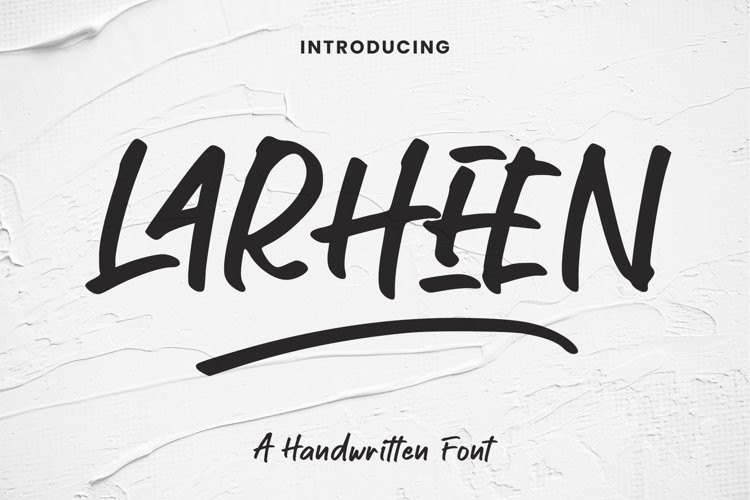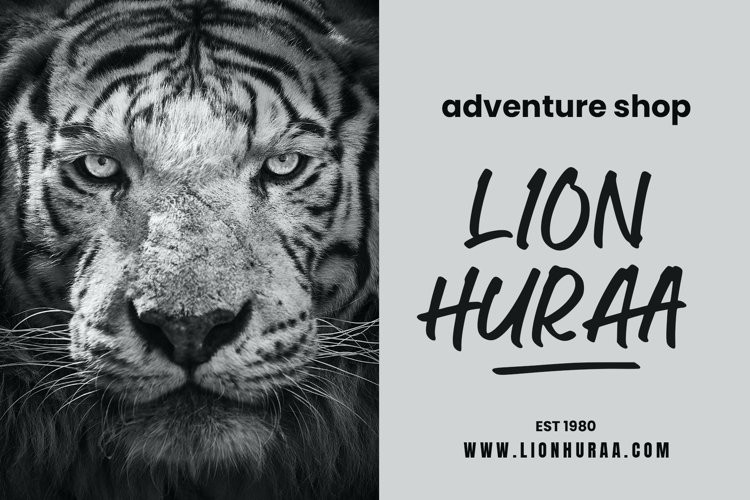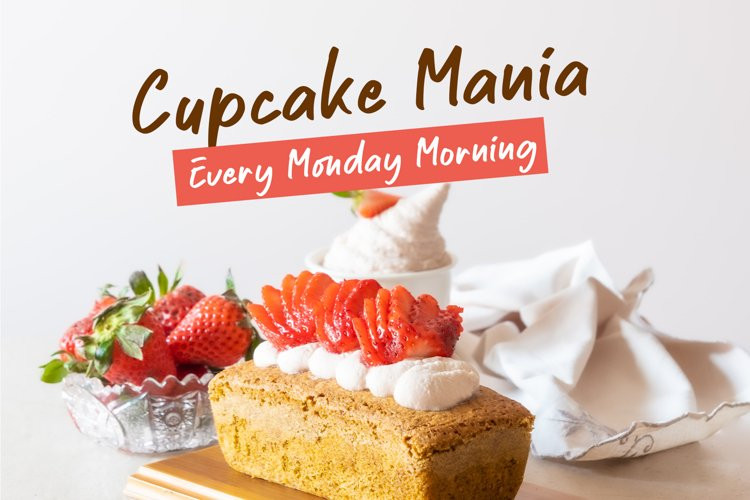
Larheen Font
Larheen FontLARHEEN Handwriting Fonts
Hello have a nice day, I just published one of the best Stylish Handwriting Script. Best match for logos, headers, Titles, Prints & other Creative process possibilities.
Larheen Font